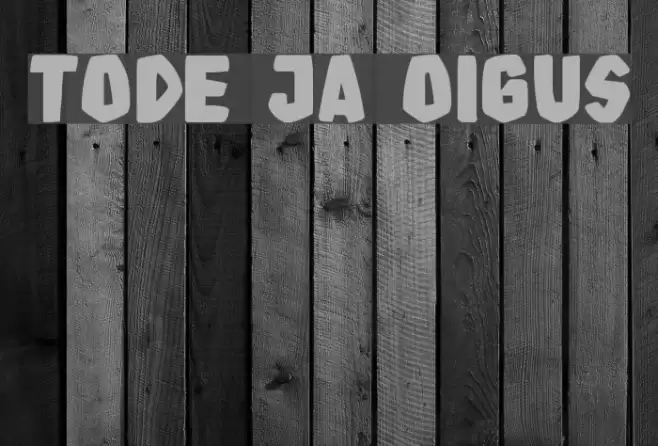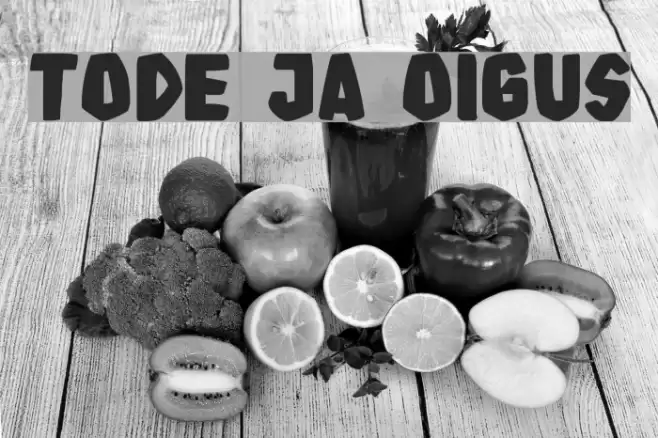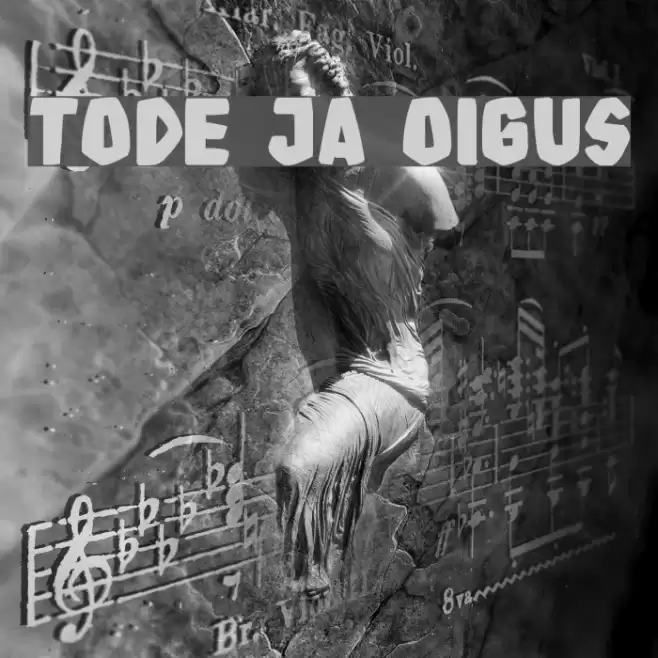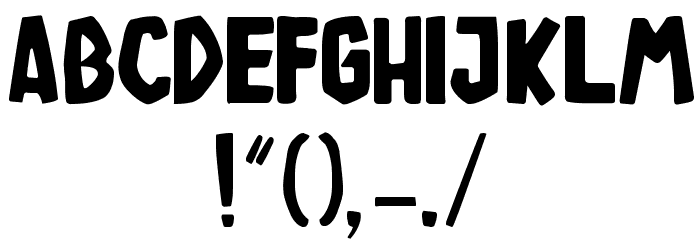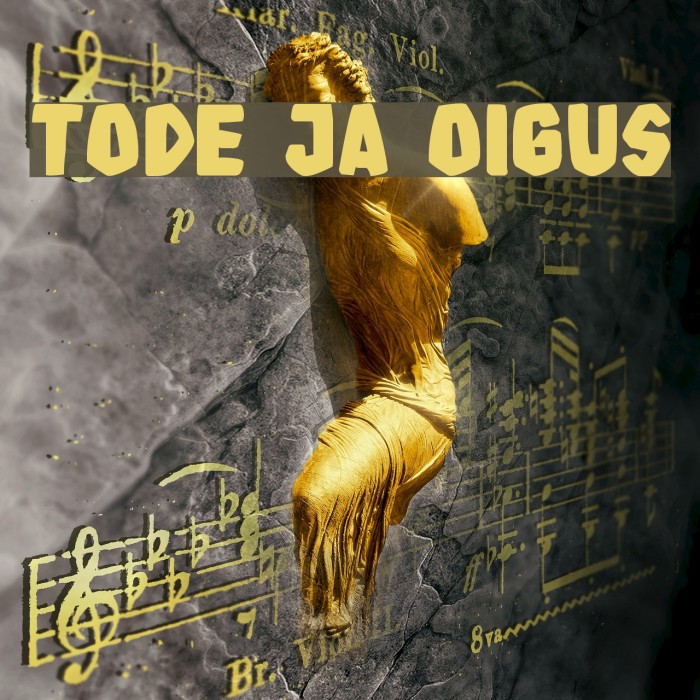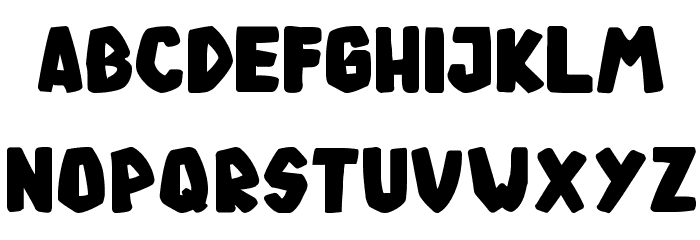
tode ja oigus Font
tode ja oigus Description
This font features a bold, playful style with a hand-drawn appearance. The characters are thick and slightly irregular, giving them a whimsical and informal look. The uppercase letters are prominent and stand out with their chunky forms, while the lowercase letters maintain the same boldness, ensuring consistency across the typeface. The numbers and special characters follow the same design ethos, contributing to the overall cohesive appearance. This font's unique style makes it suitable for projects that require a fun and engaging visual element.
A bold, playful font with a hand-drawn, whimsical style from Uncategorized fonts.
- Proposed Projects: Ideal for children's books, comic strips, playful branding, and creative posters.
- Overall Style: Playful, Whimsical